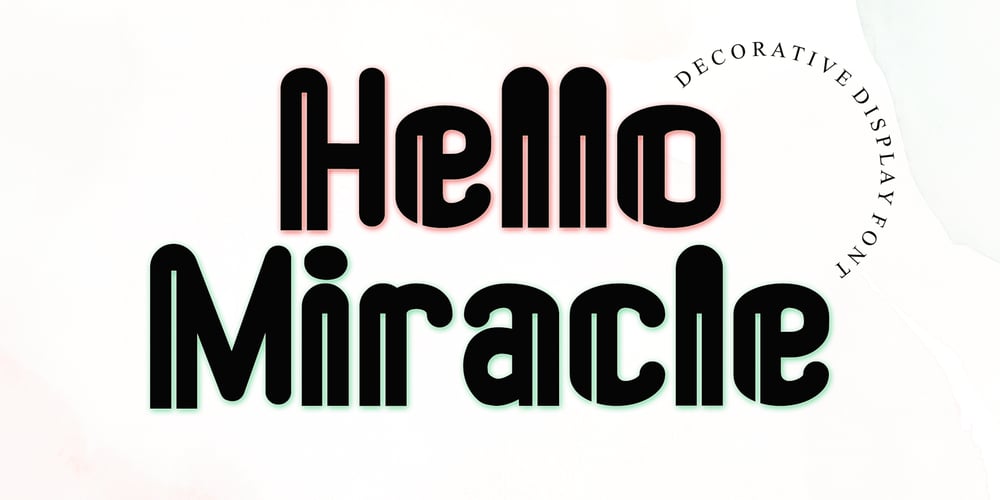
Hello Miracle
Hello Miracle font
Hello Miracle Font Family was designed by Ahmad Afandi and published by Letterafandi Studio. Hello Miracle contains 2 styles and family package options. Hello Miracle is a cool and interestingly designed display font. It will elevate a wide range of crafting ideas, from cards, to branding, labels and much more.This font is PUA encoded which means you can access all of the glyphs with ease!